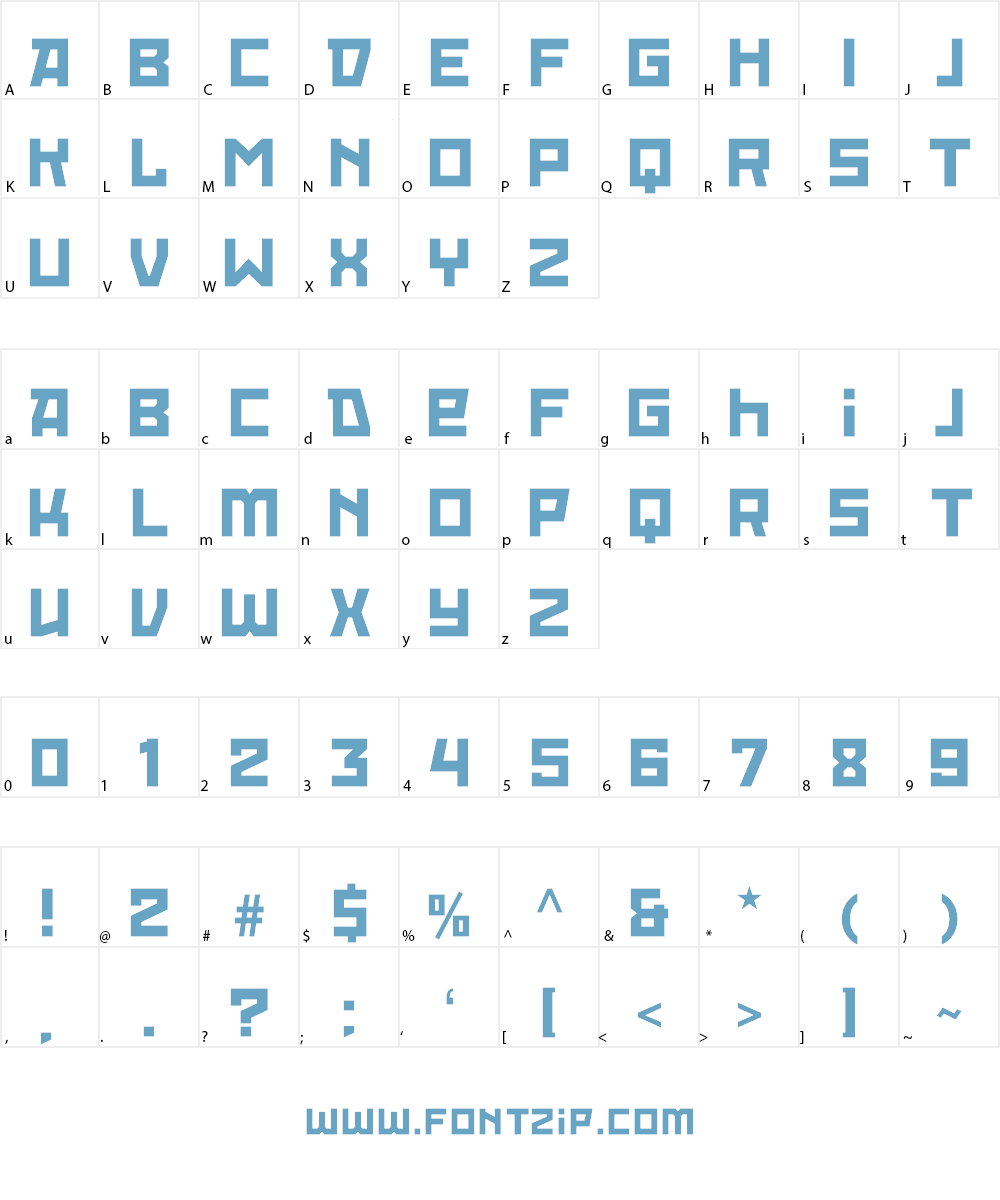
This one has been inspired by a series of WW2 Russian propaganda posters.
OpenType, including full Cyrillic font table.Another variation of my highly popular Red October typefaceUpdated metrics. Admin, please update source